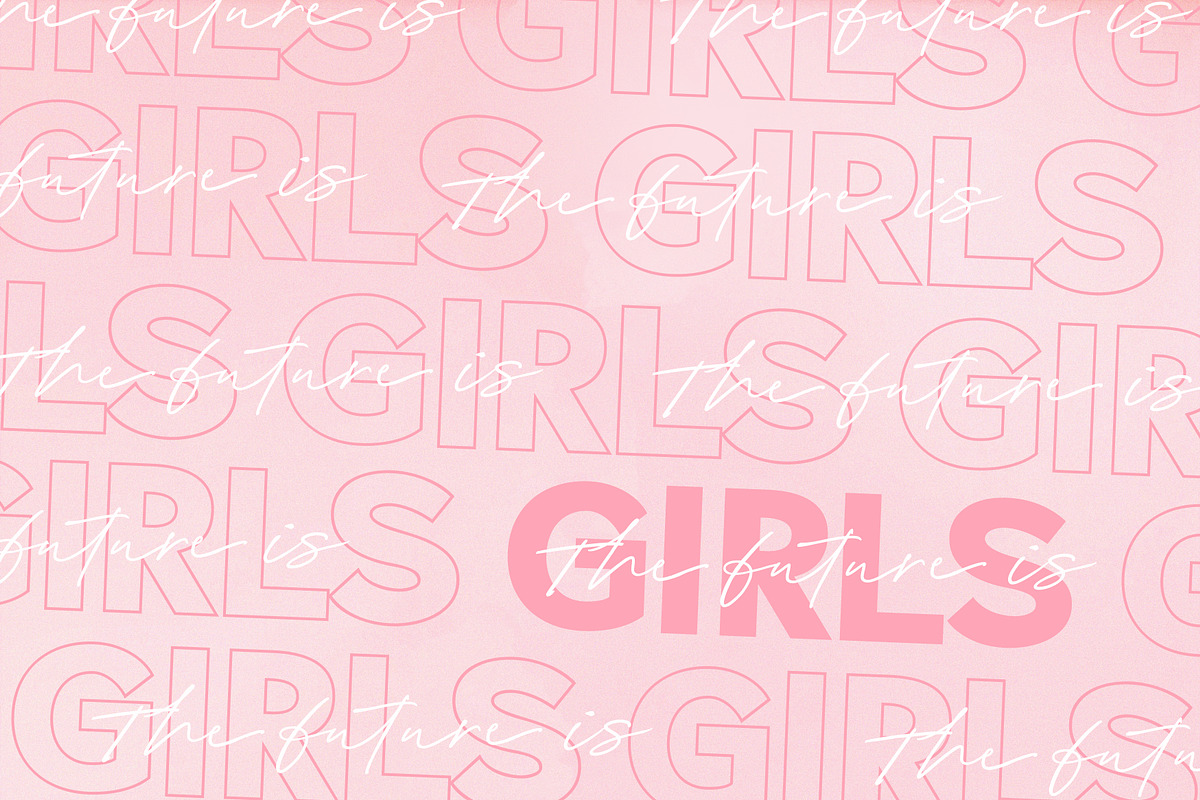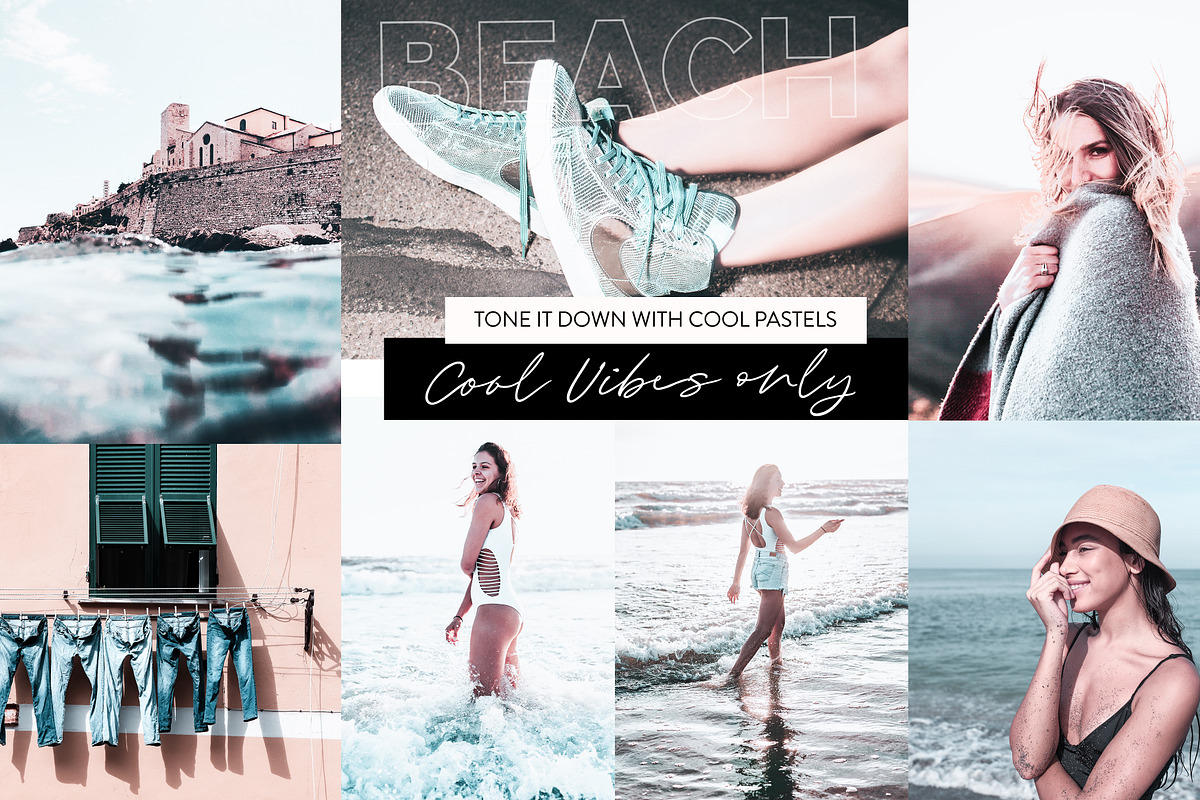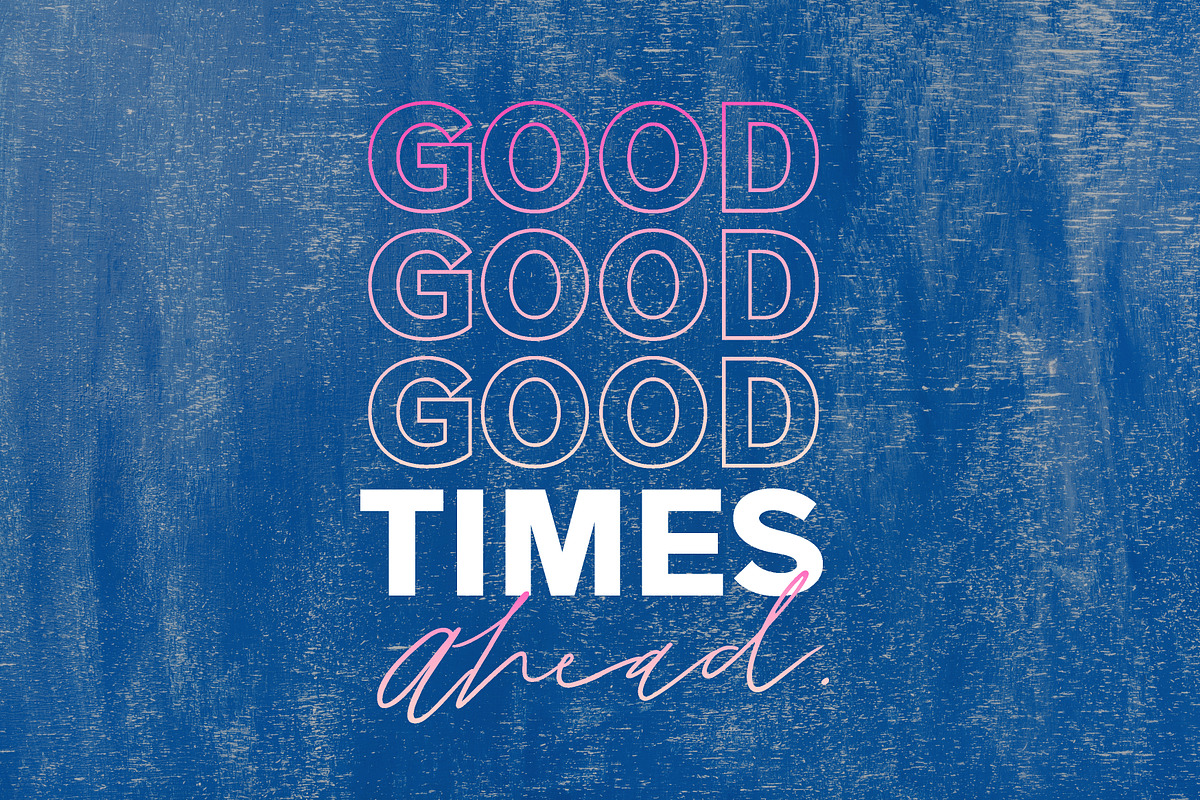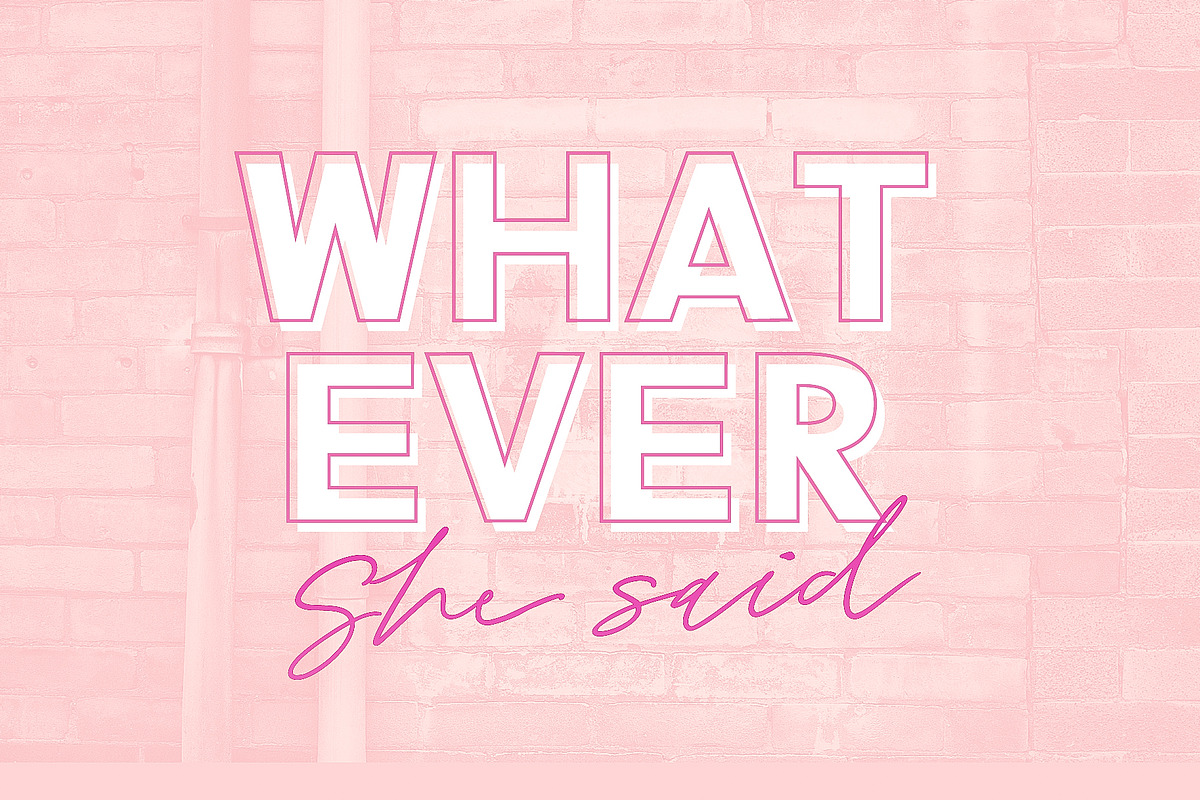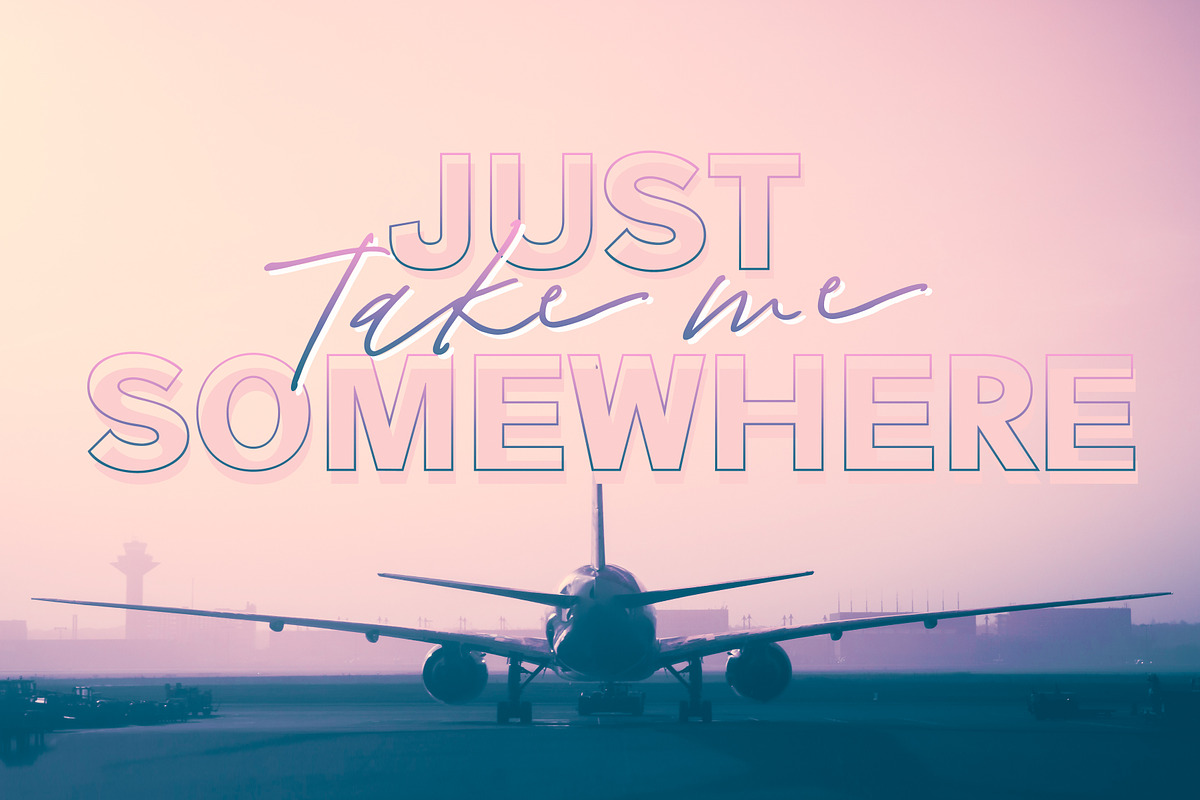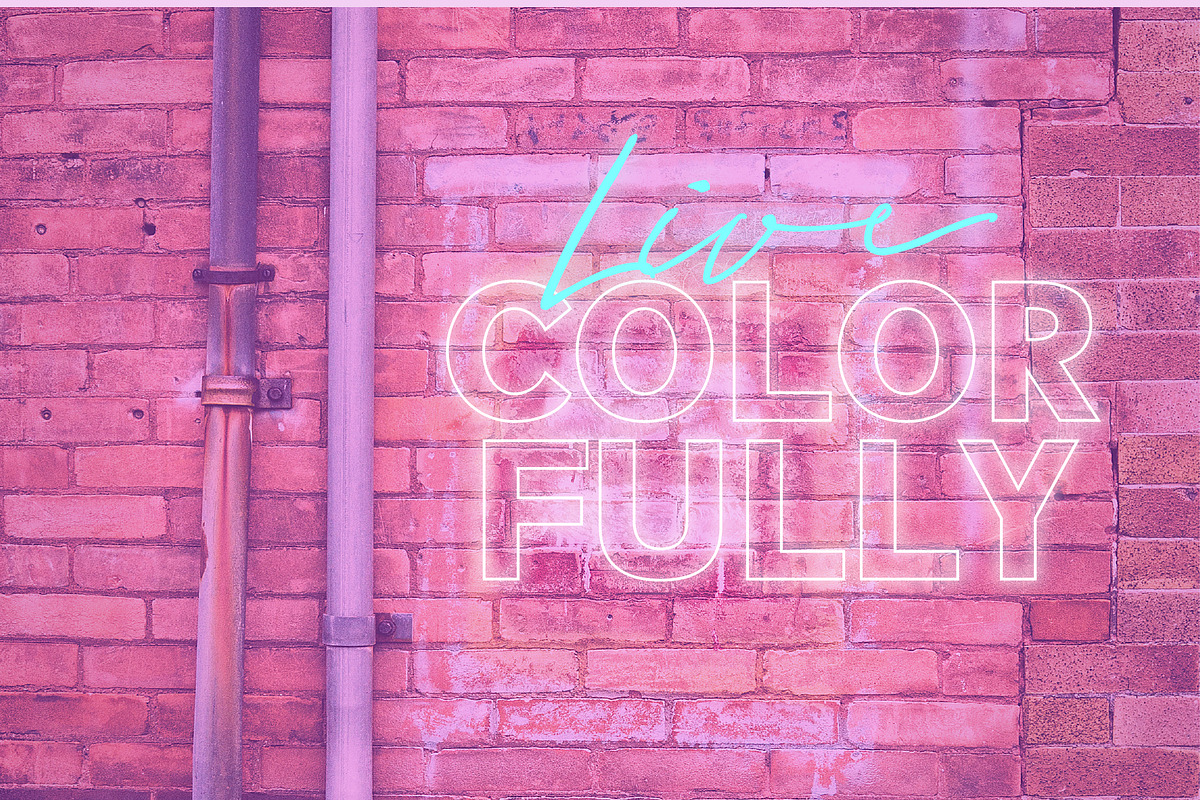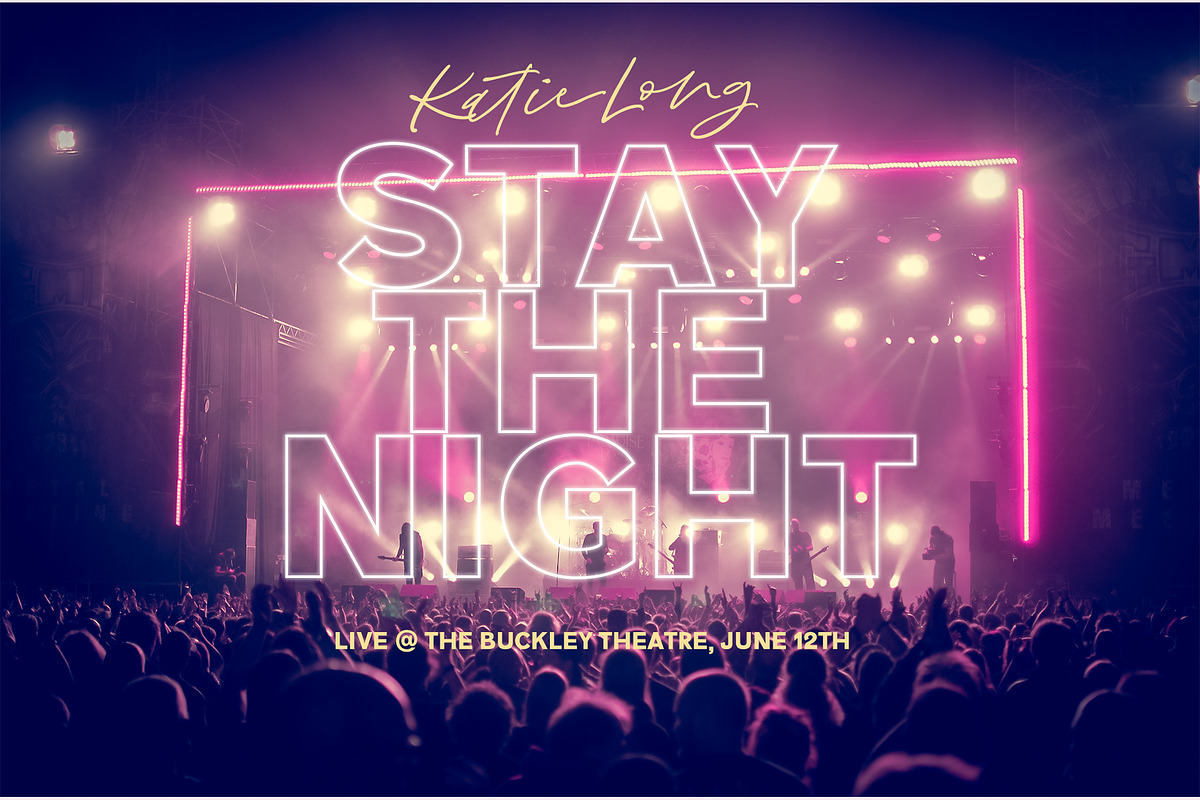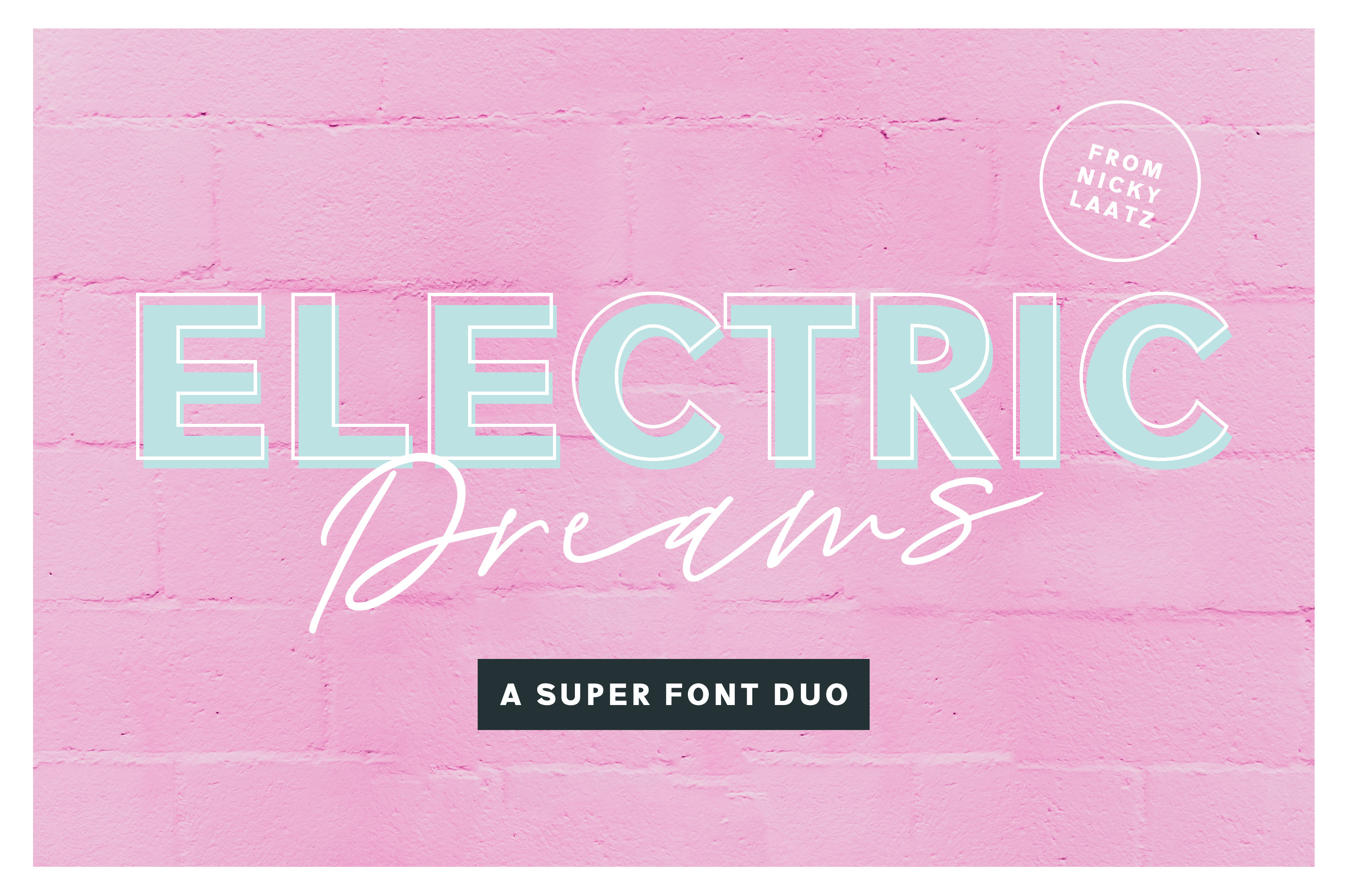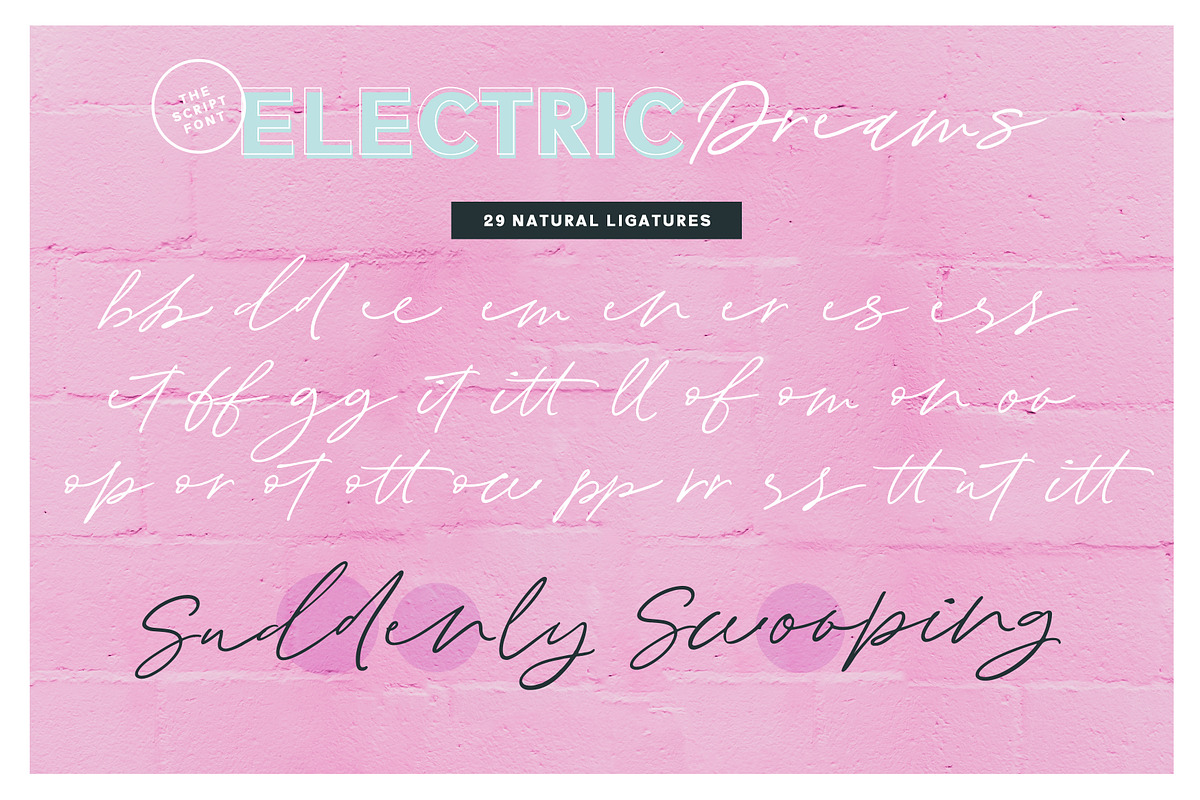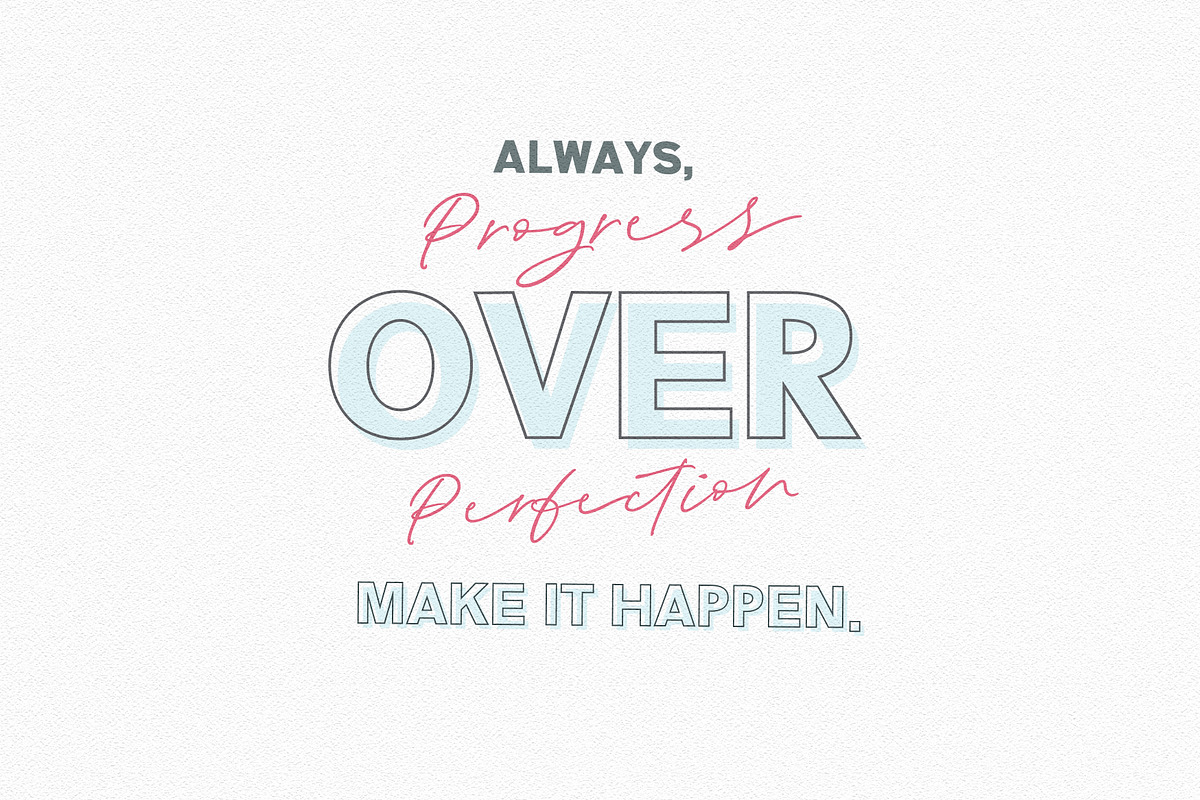
Electric Dreams Font Duo
Make ELECTRIC designs with an ELECTRIC font duo! Say hello to ELECTRIC DREAMS - A slick new font duo with awesome, endless possibilities. A perfect addition to the professional designers font arsenol.
Designed to work in harmony, the duo consists of a super-smooth , casual signature-style script and a clean, crisp set of all-caps sans serif fonts.
The script font is a natural signature style font, loaded with awesome opentype features, including 29 natural looking ligatures, as well as a full alternate upper and lowercase character set.
The sans serif font consists of two outline fonts of differring weights, and a solid version. Layer them in different colours and opacities to get a million different looks.
Super versatile, the Electric Dreams font duo lends itself to many different styles of projects. Perfect for branding, logo, web and editorial design, to name just a few - it has many different faces, from soft and feminine to loud and proud.